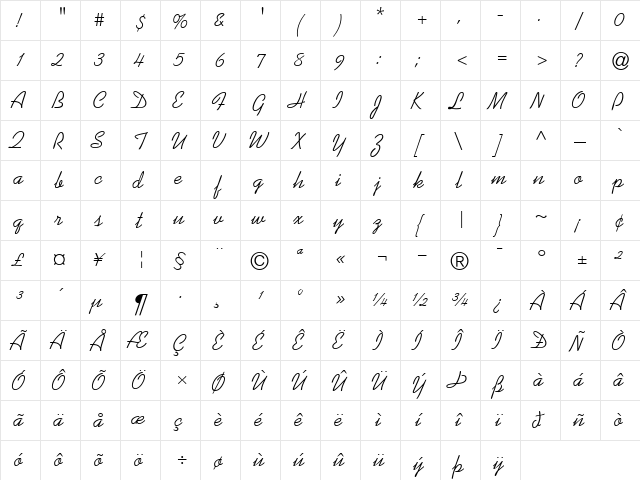
Kaufmann Italic Font Preview
Kaufmann Italic
Kaufmann Italic Font Details
Design Context for Kaufmann Typeface
Kaufmann takes a measured approach to typography — its balanced proportions and neutral character make it a reliable workhorse for both digital and print work. The dynamic lean of this cut emphasises speed and emphasis in any layout.
Pro Tip: Use Kaufmann for emphasis, pull quotes, and subheadings where its slanted energy can add rhythm to the layout.